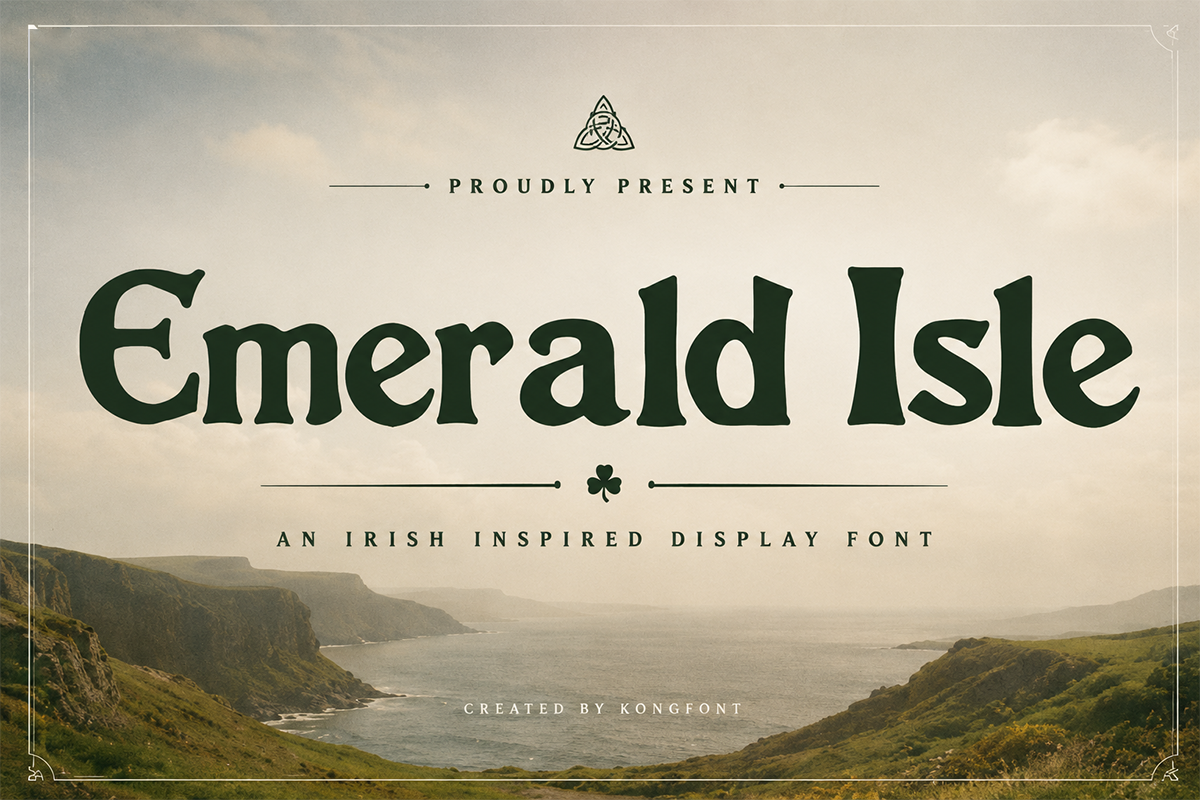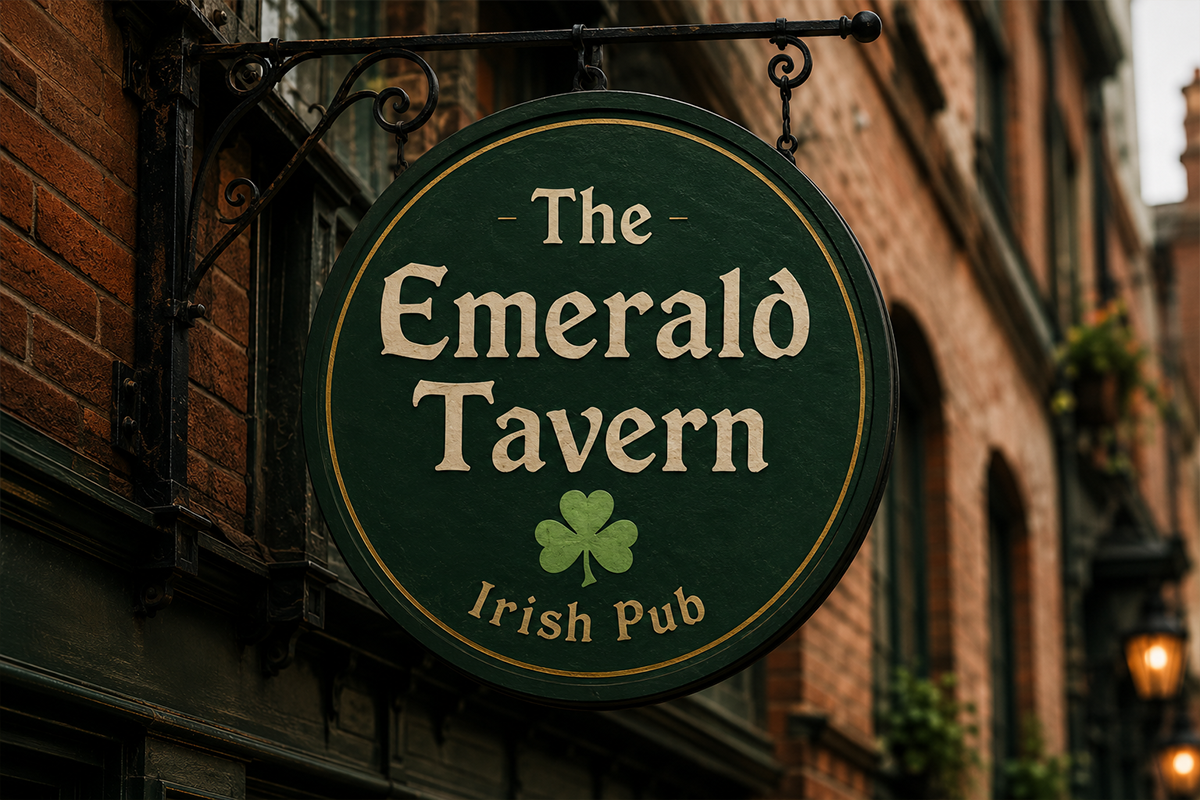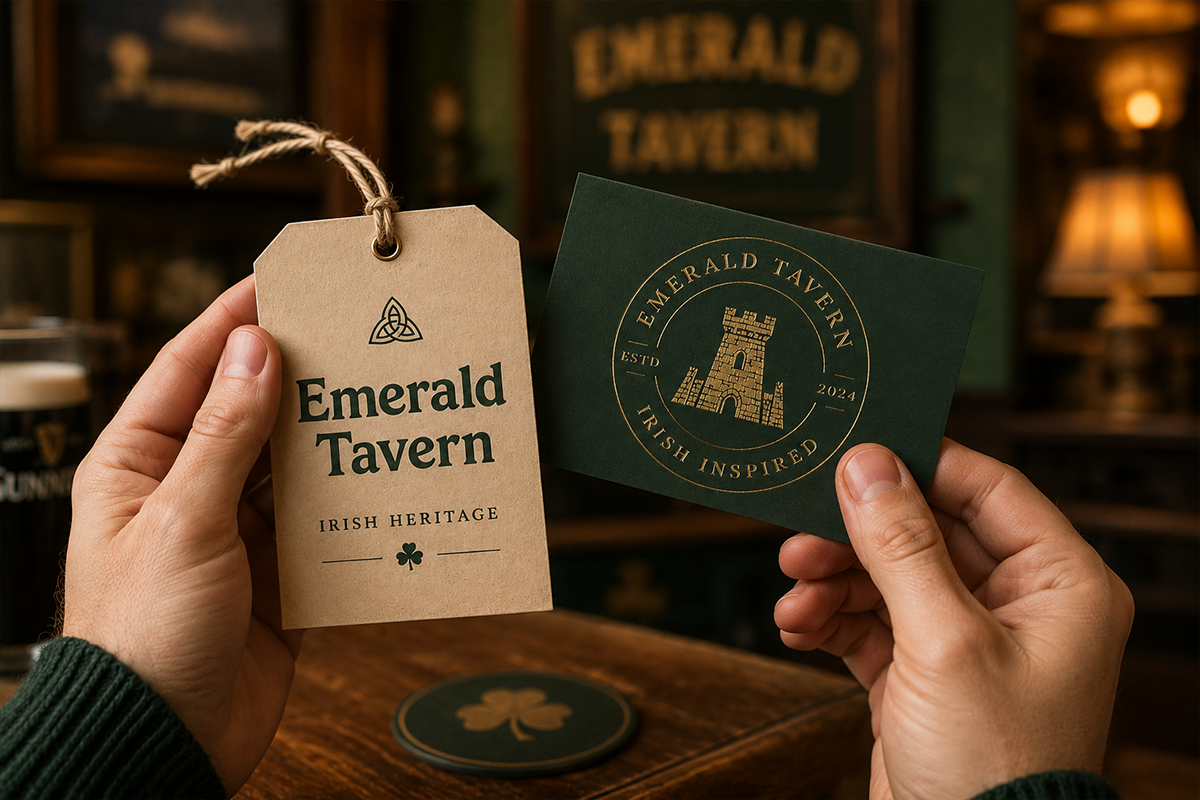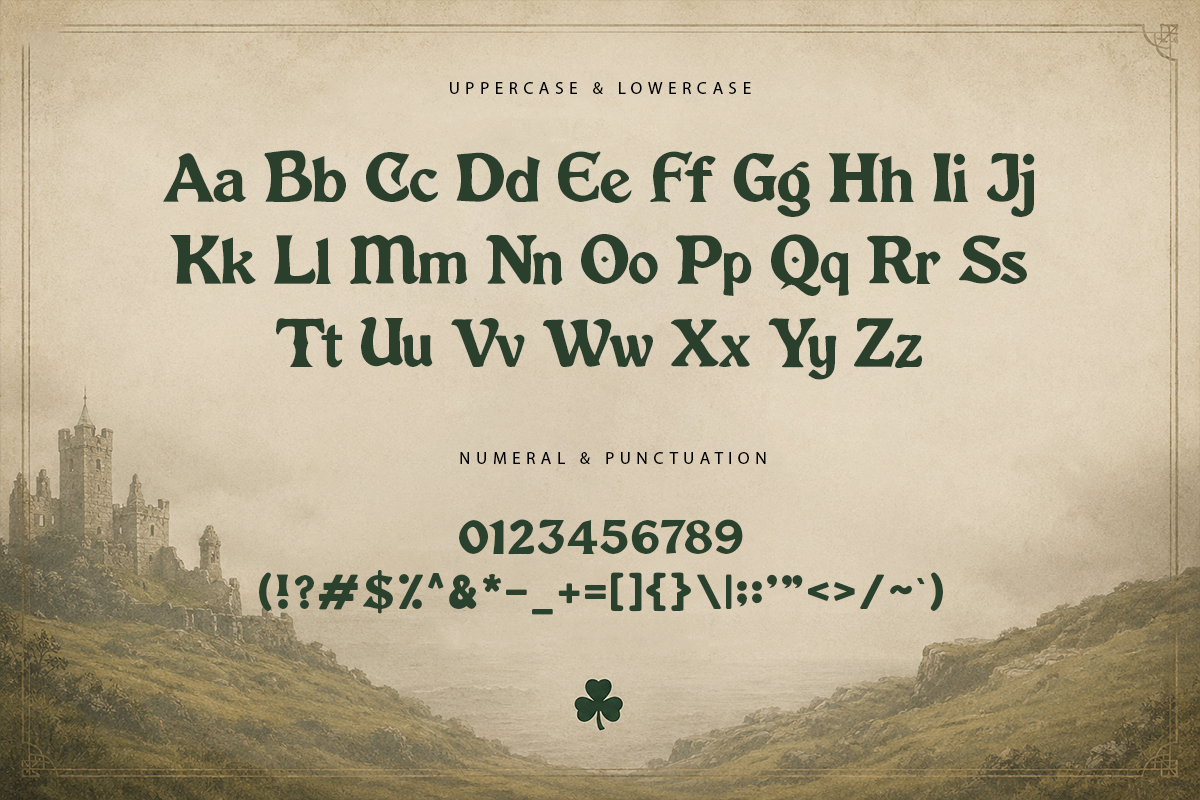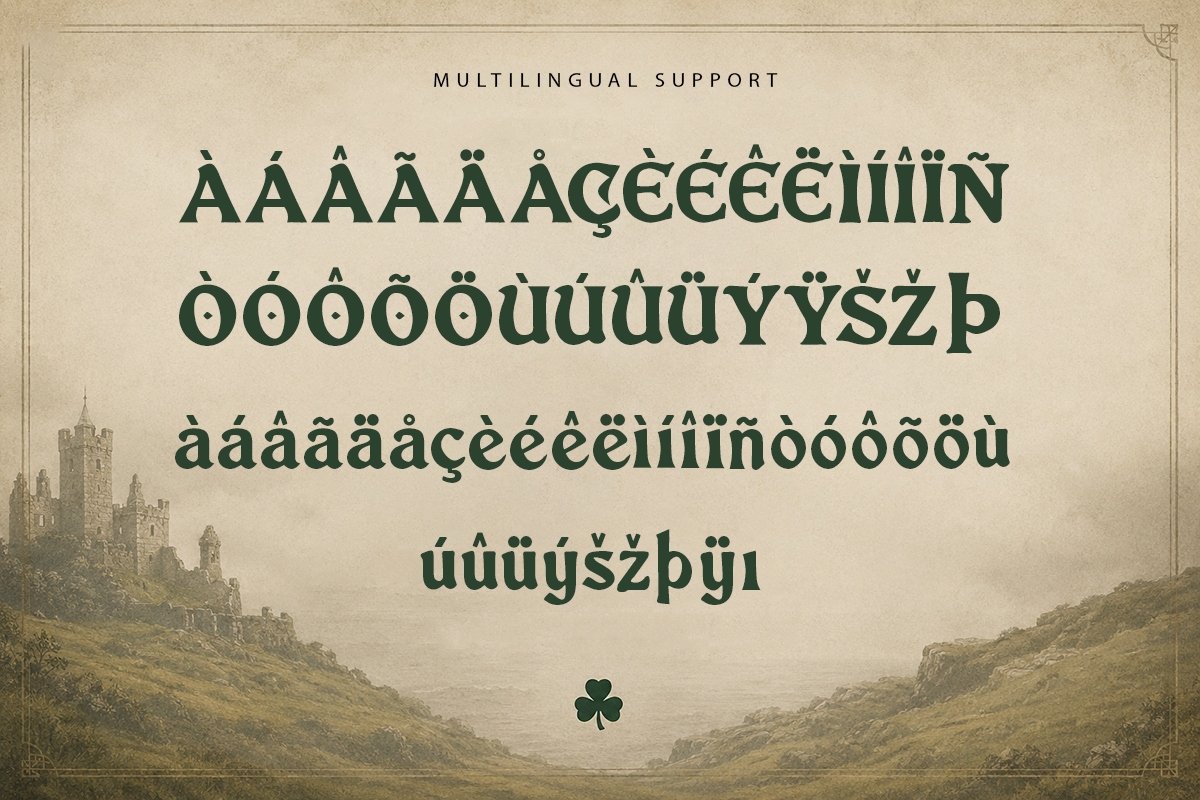
Emerald Isle A Modern Display Font
Emerald Isle A Modern Display Font is a bold retro display font inspired by the cozy atmosphere of coffee shops, slow mornings, and vintage café culture. With its chunky letterforms, soft curves, and nostalgic character, this typeface brings warmth, personality, and timeless charm to any creative project.
Designed to capture attention while maintaining a friendly and inviting feel, Emerald Isle A Modern Display Font blends classic retro aesthetics with modern usability. Its distinctive shapes make it perfect for branding, packaging, signage, and promotional materials that need a memorable and authentic visual identity.
Whether you're creating a coffee brand, café menu, bakery packaging, lifestyle merchandise, or social media content, Emerald Isle A Modern Display Font delivers a comforting and stylish presence that instantly stands out.